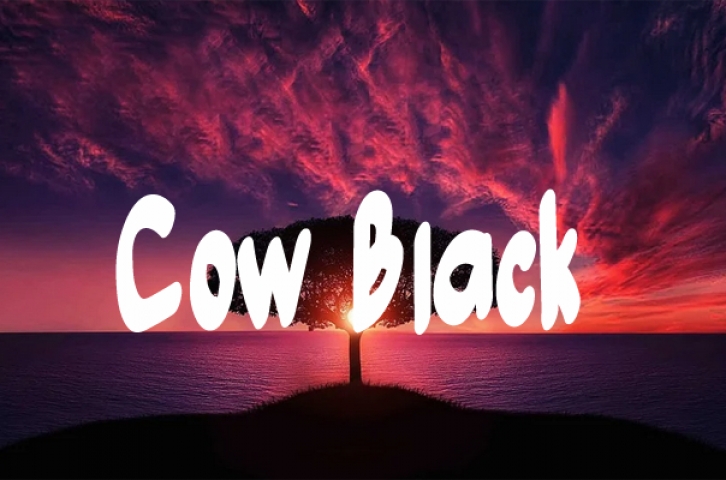
Cow Black is a simple and adaptable handwritten font. No matter the topic, this font will be an incredible asset to your fonts’ library, as it has the potential to elevate any creation.